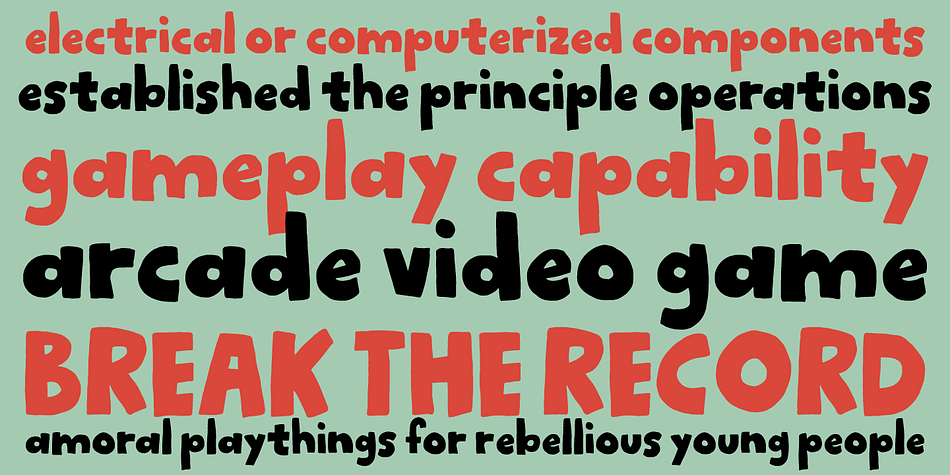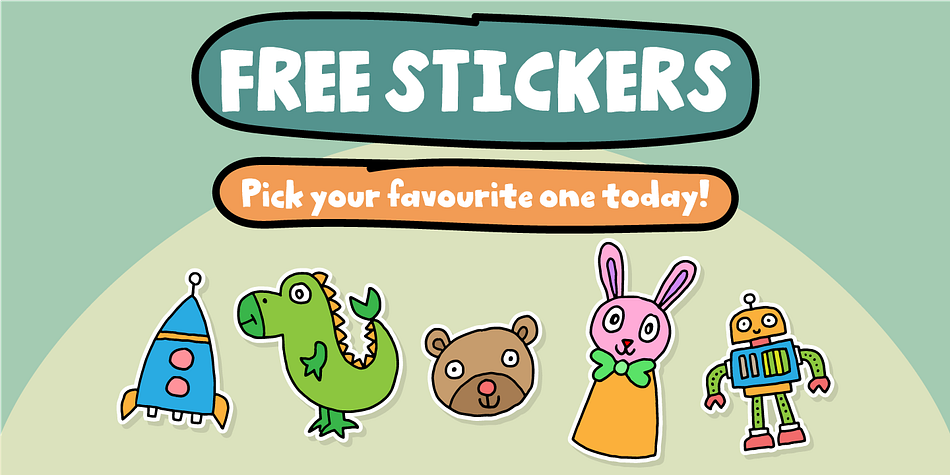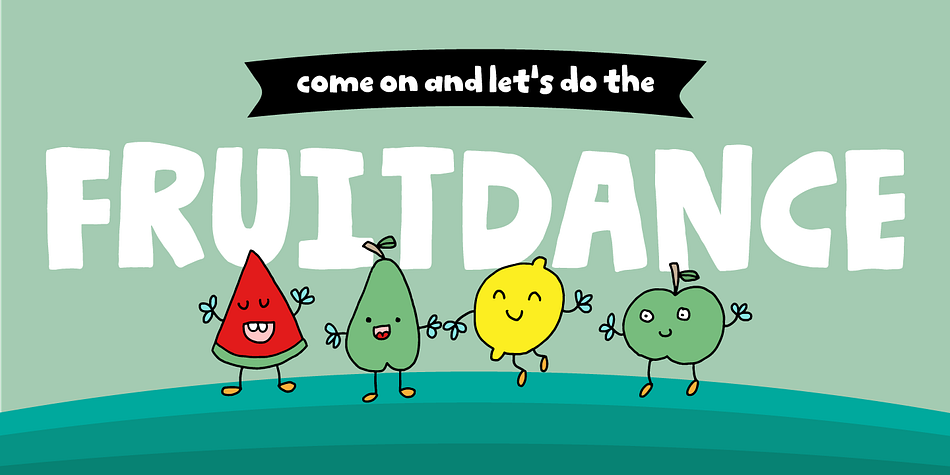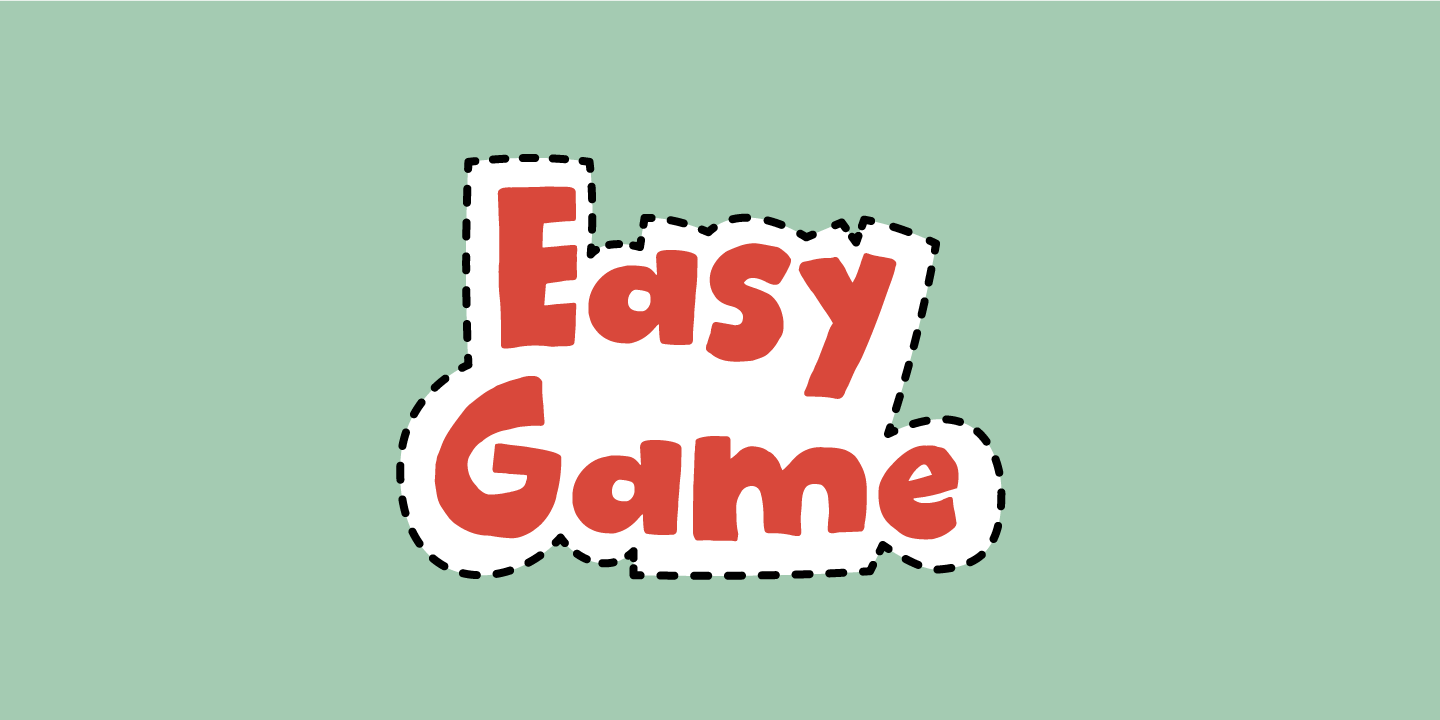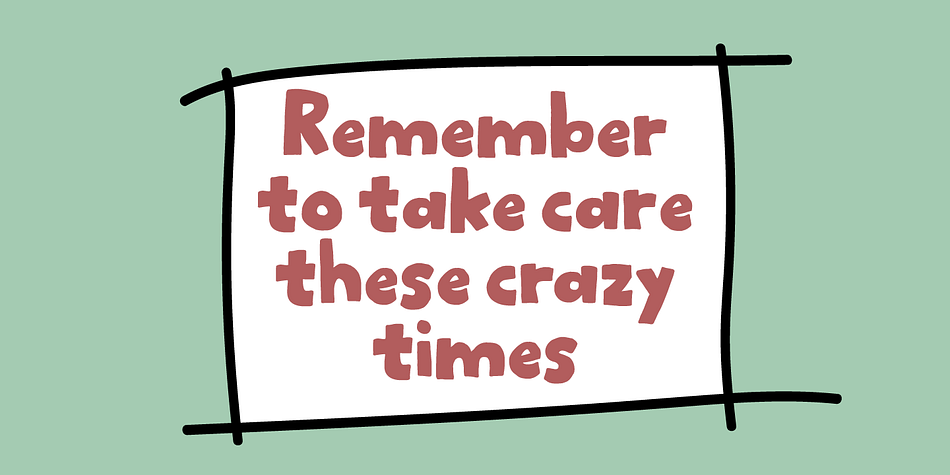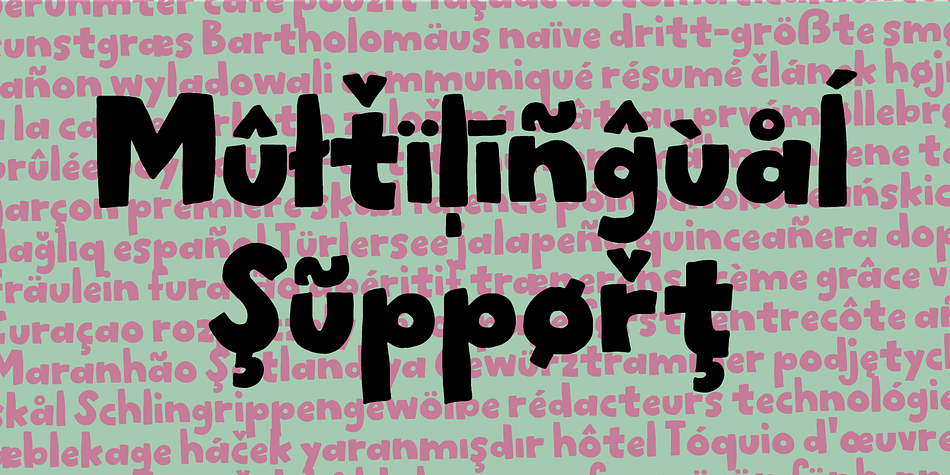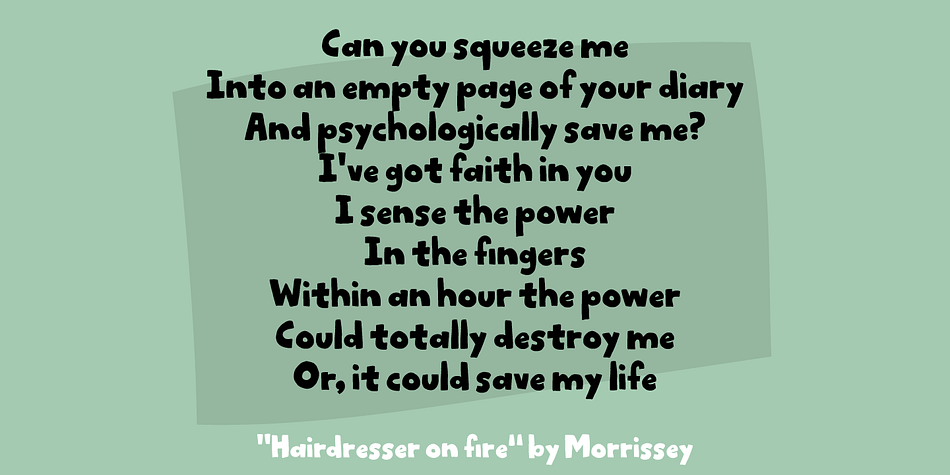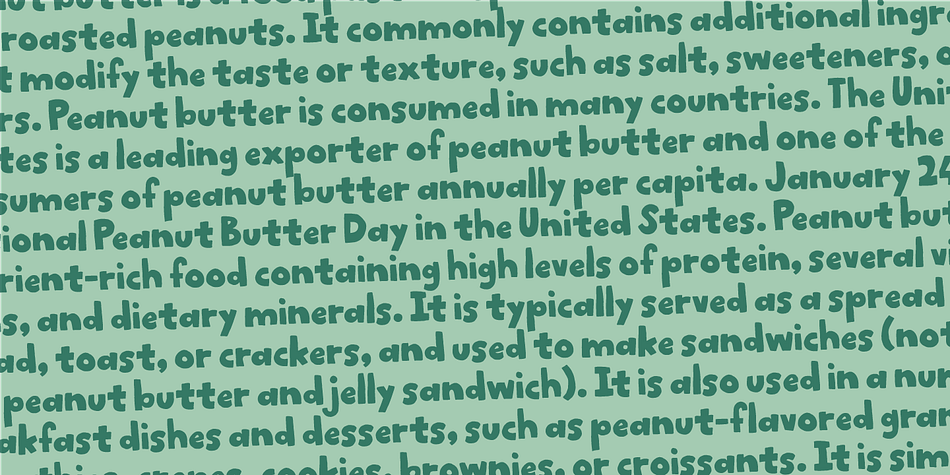
Easy Game
Designed by Jakob Fischer, Easy Game is a hand display and hand drawn font family. This typeface has two styles and was published by Pizzadude.dk.
Easy Game is my laid back, easy to read, fun to watch comic and all-purpose font!